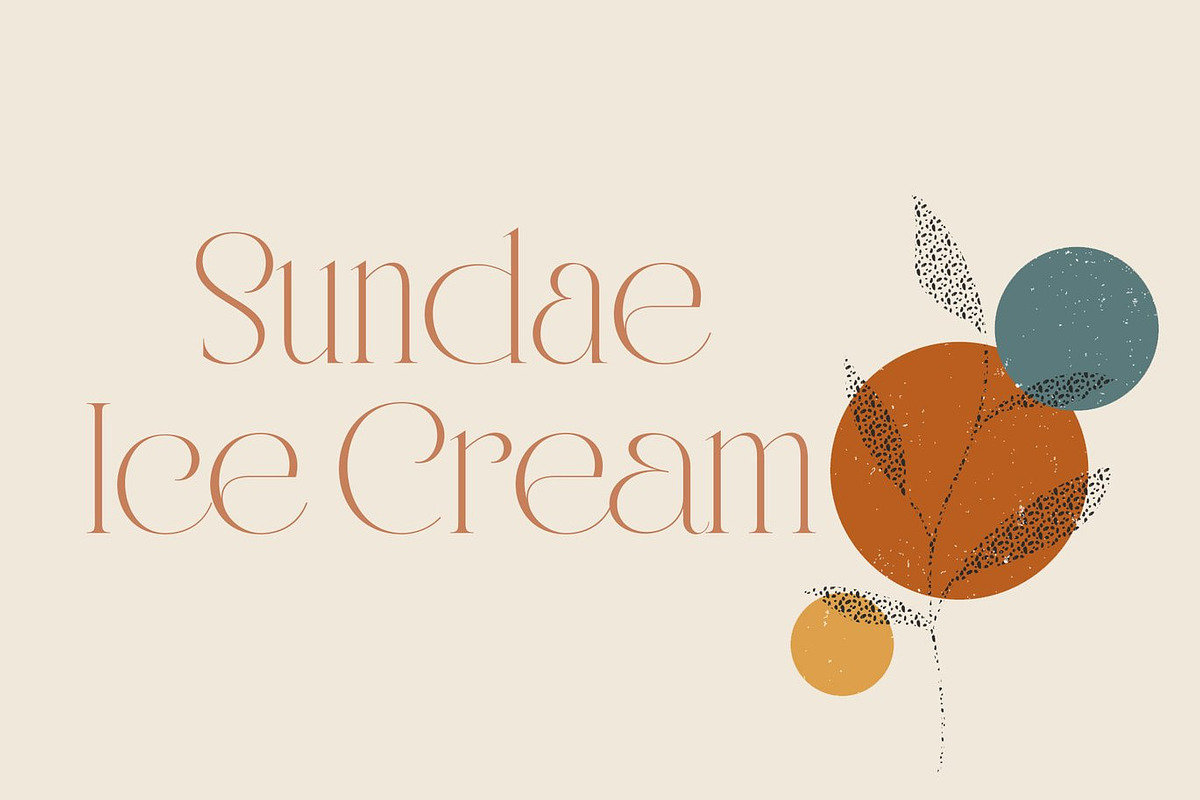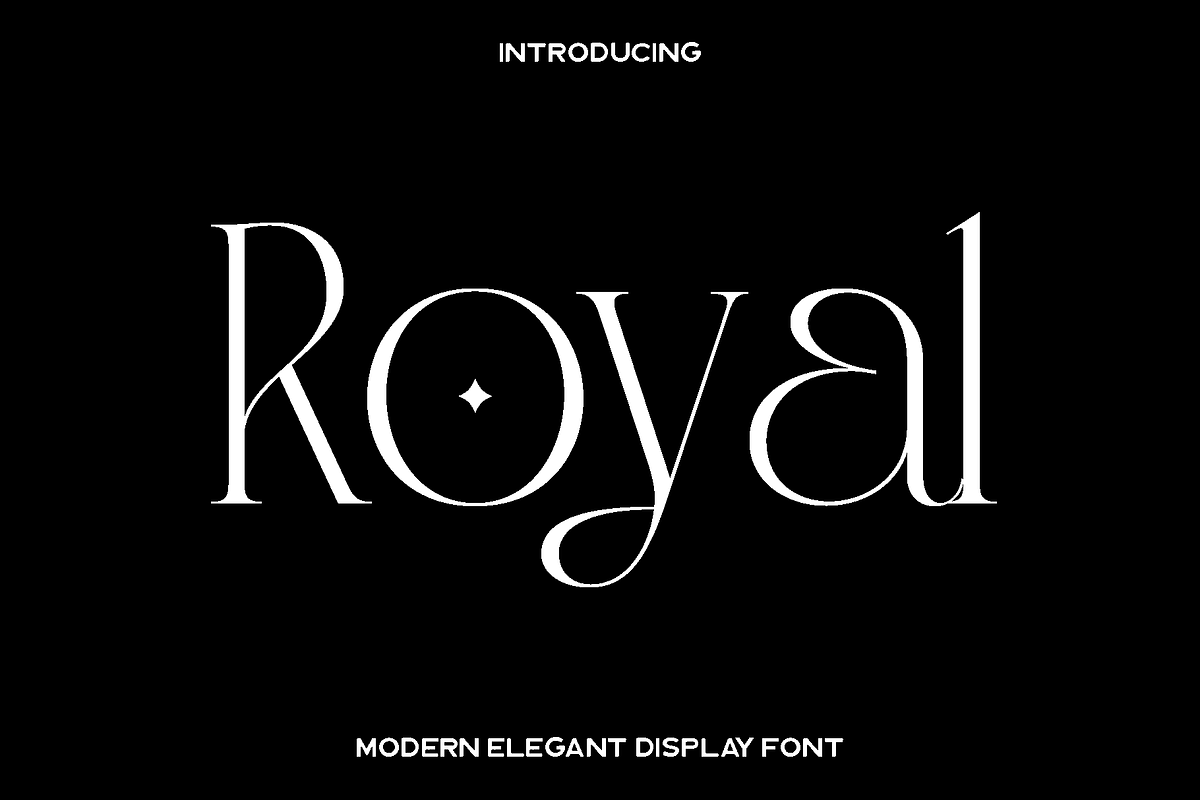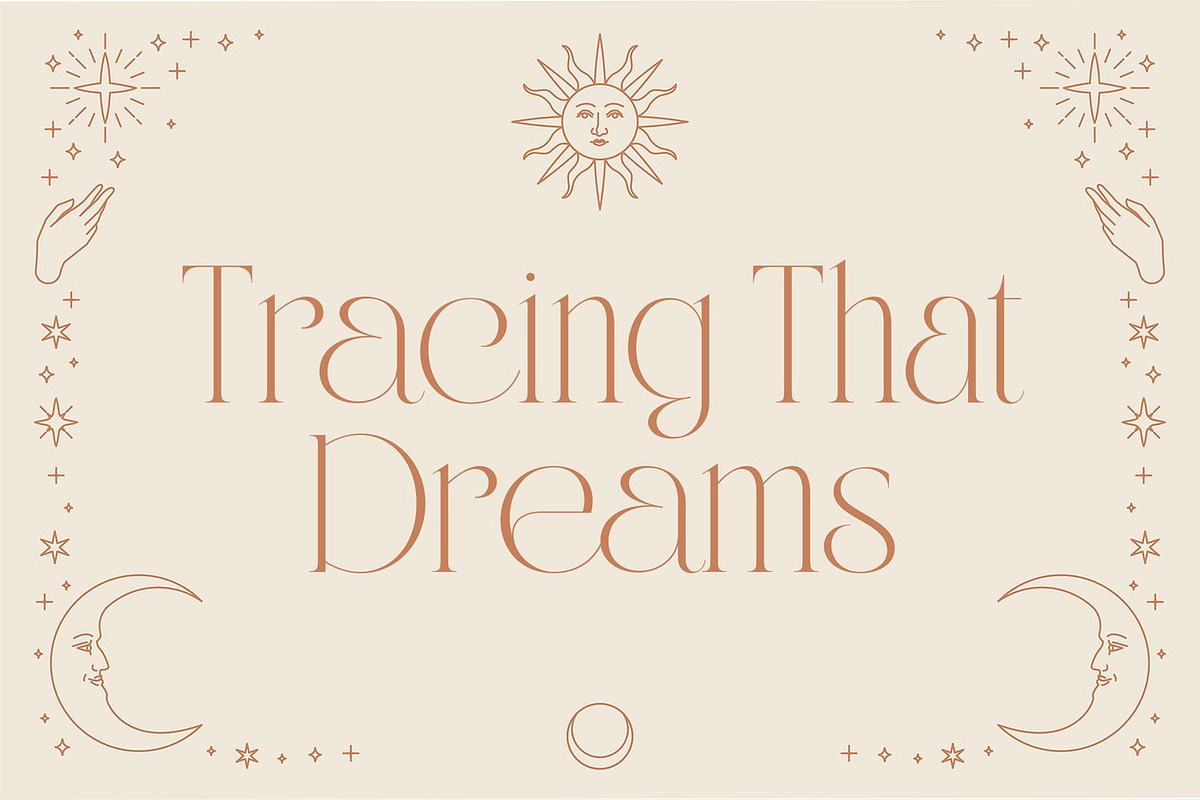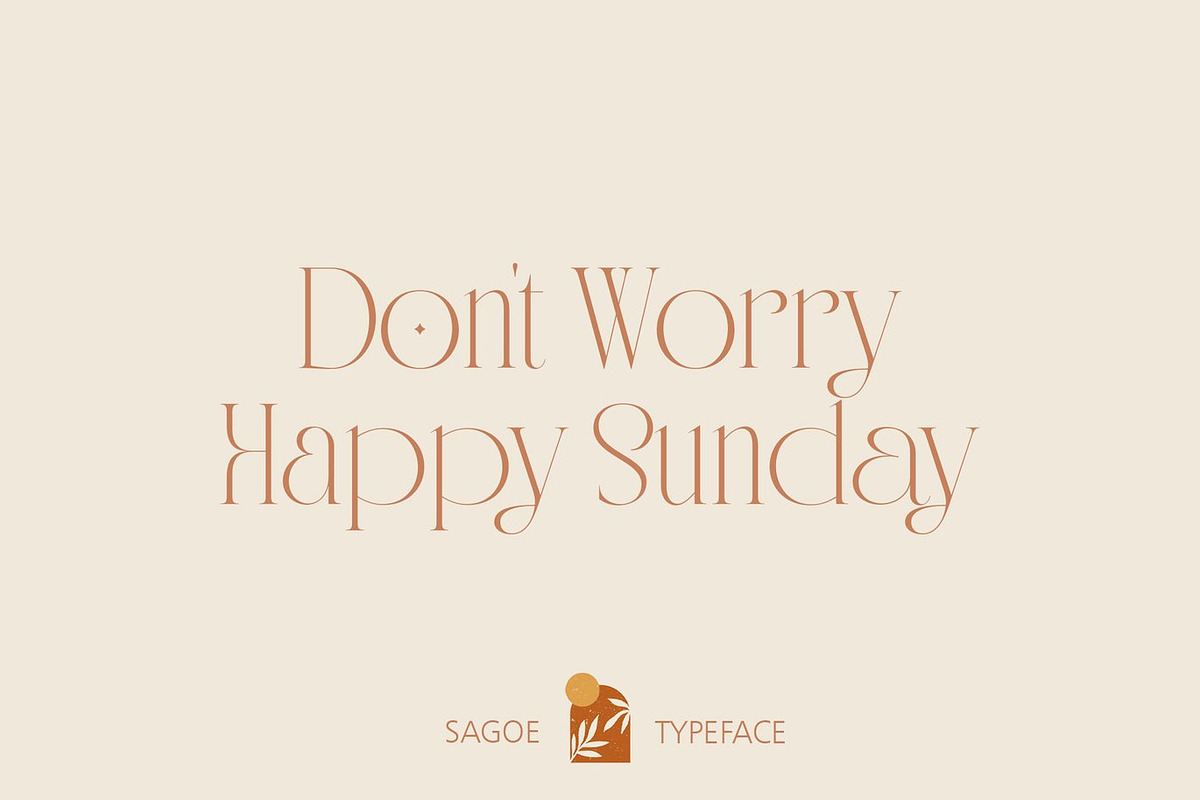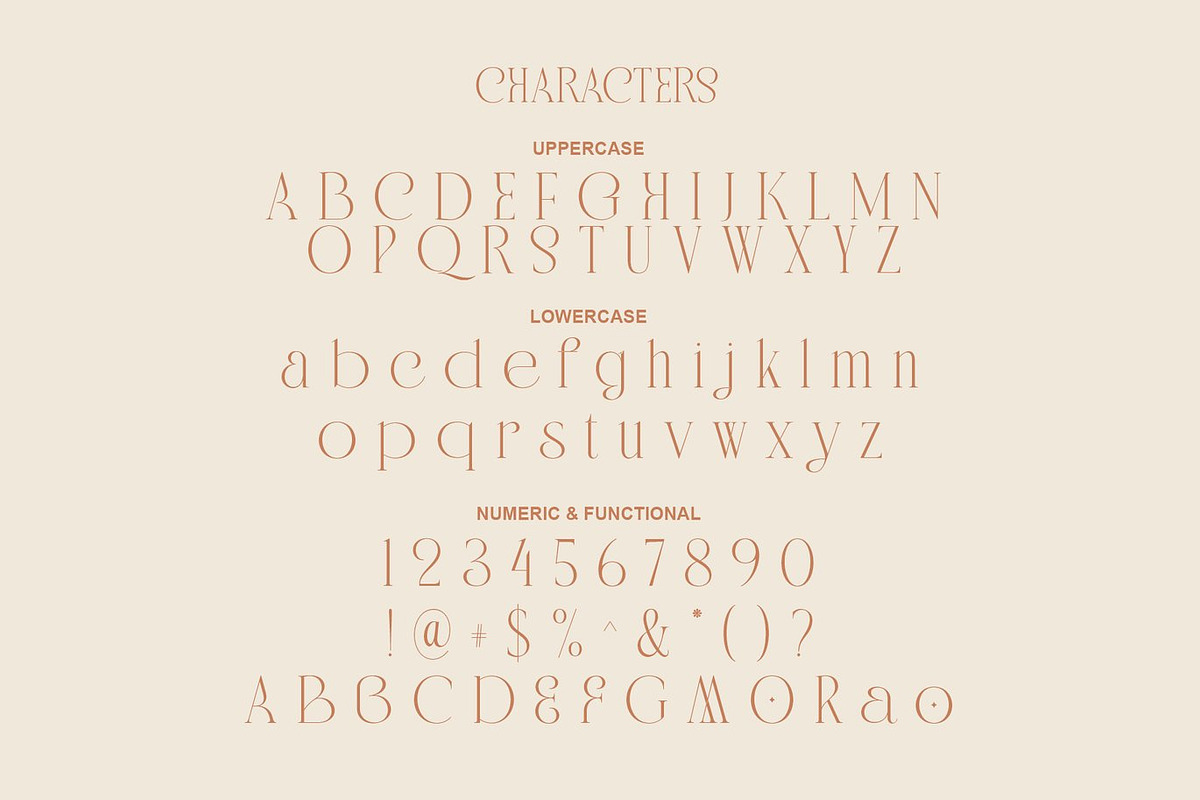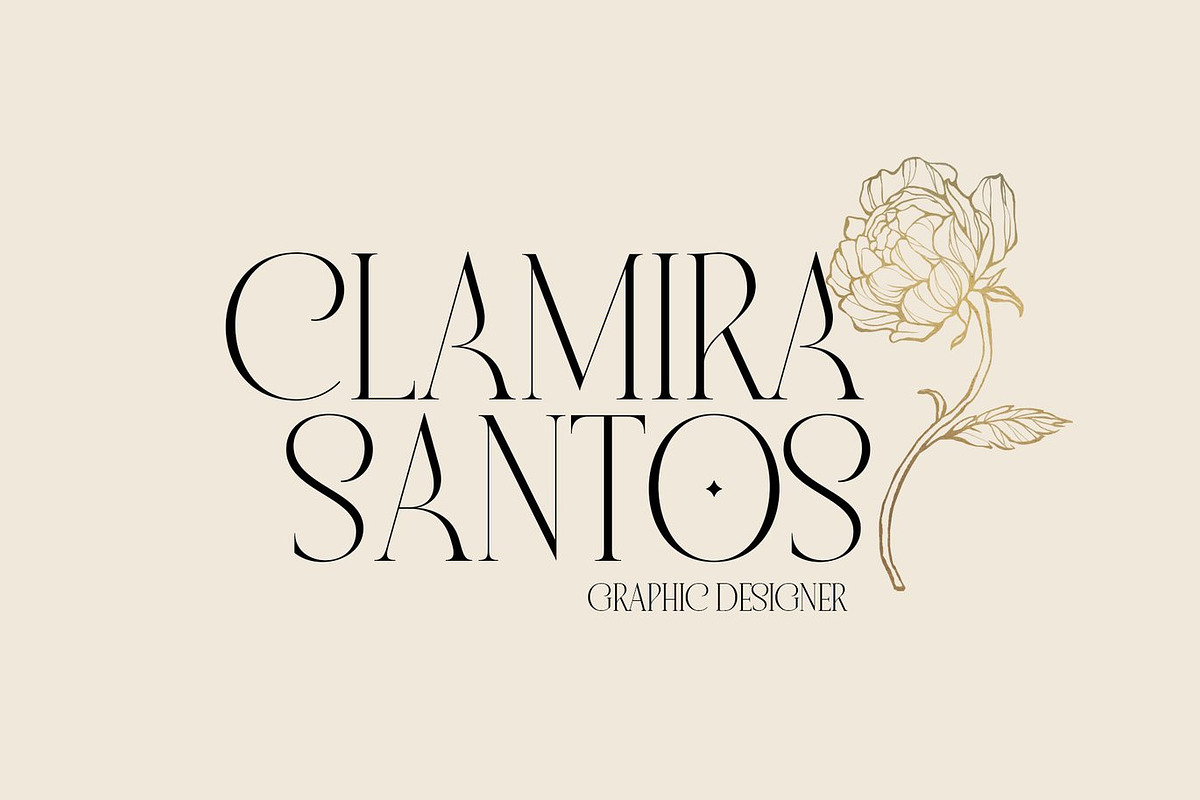
Royal - Modern Elegant Display
Royal is a modern display font created with precision and refined detail, designed to give your typography a confident and stylish presence. Crafted with careful balance and clean construction, Royal reflects a contemporary aesthetic that feels both elegant and powerful. Its smooth shapes and well defined structure bring a sense of professionalism while maintaining a creative and expressive character.
This font shines in projects that require a strong visual identity. Royal is an excellent choice for branding design, logo creation, greeting cards, packaging, headlines, and promotional materials. The included alternate characters and ligatures allow designers to customize their lettering, adding personality and uniqueness to every composition. Whether used in bold titles or refined branding elements, Royal delivers clarity with a modern touch.
Royal feels polished, versatile, and inspiring. It adapts beautifully to both digital and print applications, helping designers create work that feels premium and memorable. With its functional multilingual support and complete character set, Royal becomes a reliable and creative tool for designers who want their projects to stand out with confidence and style.
Royal Font Features:
• Uppercase and lowercase
• Numerals and functional characters
• Alternate characters and ligatures
• Multilingual support